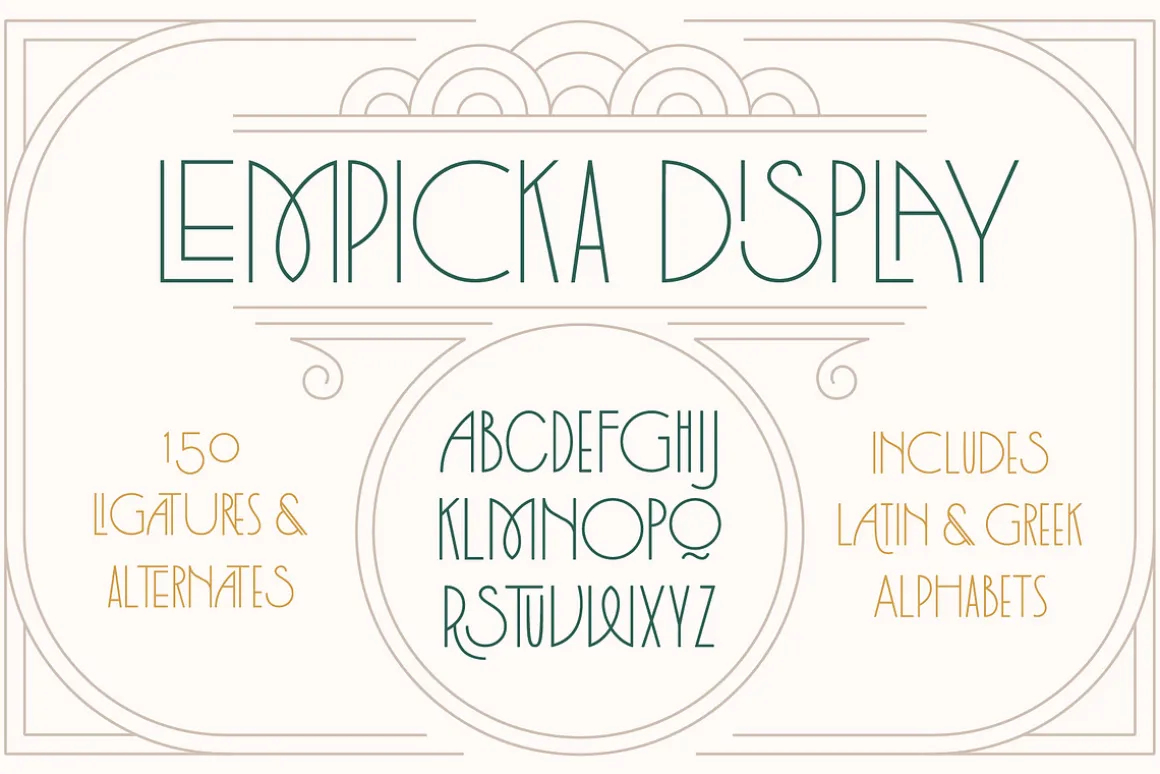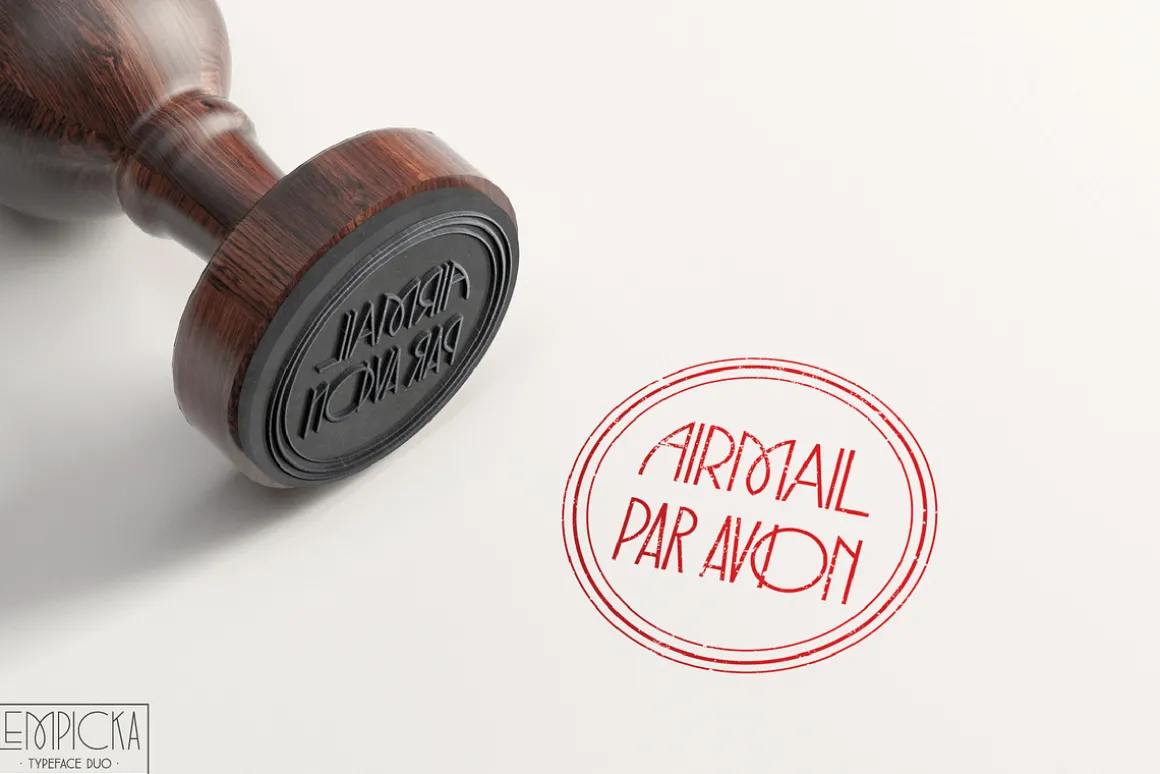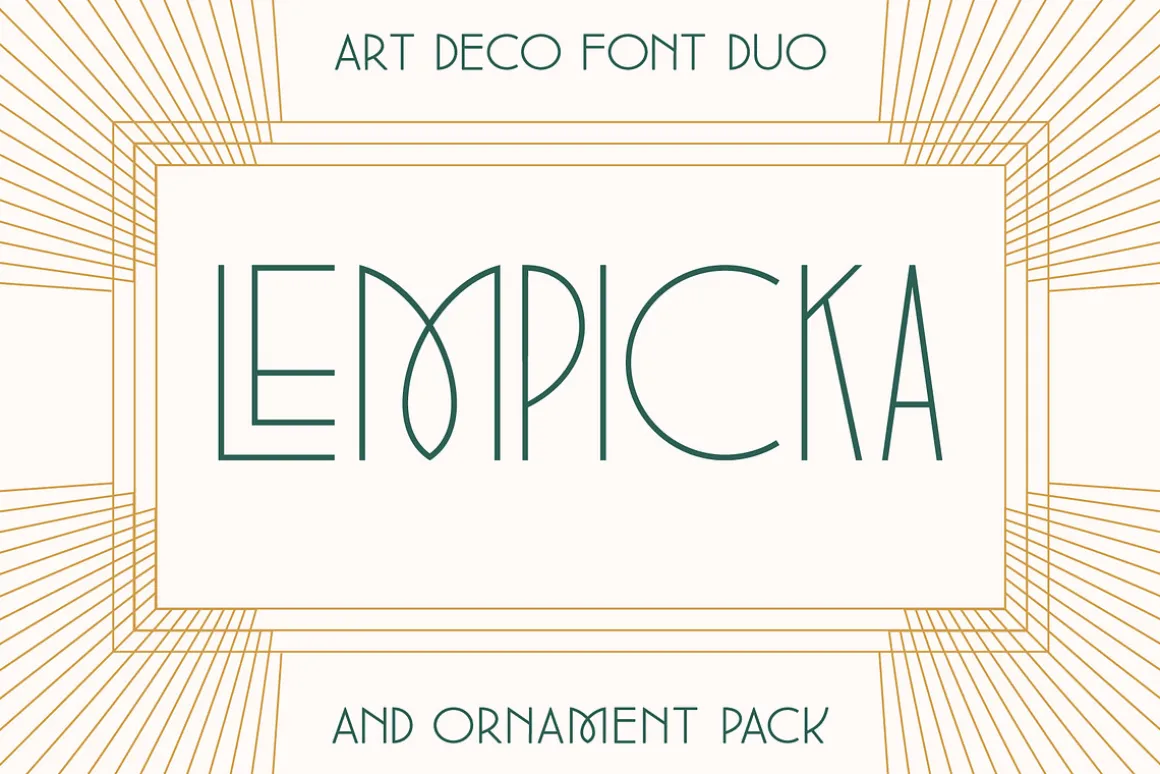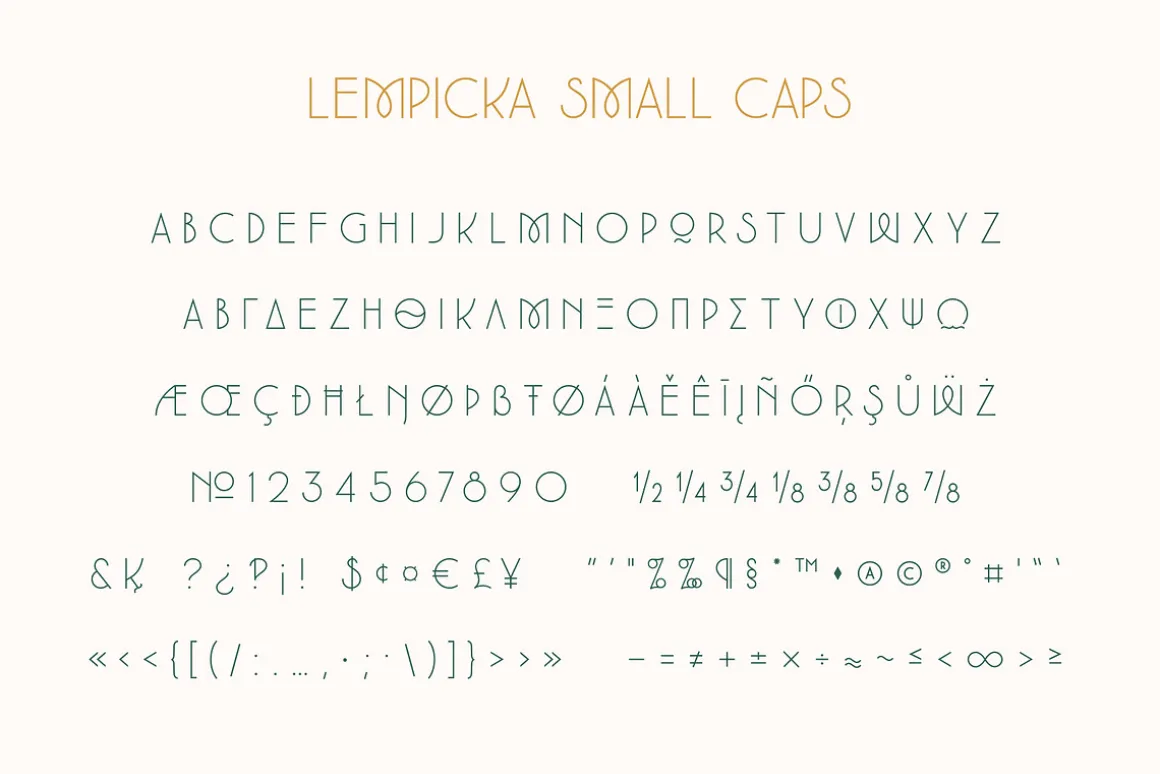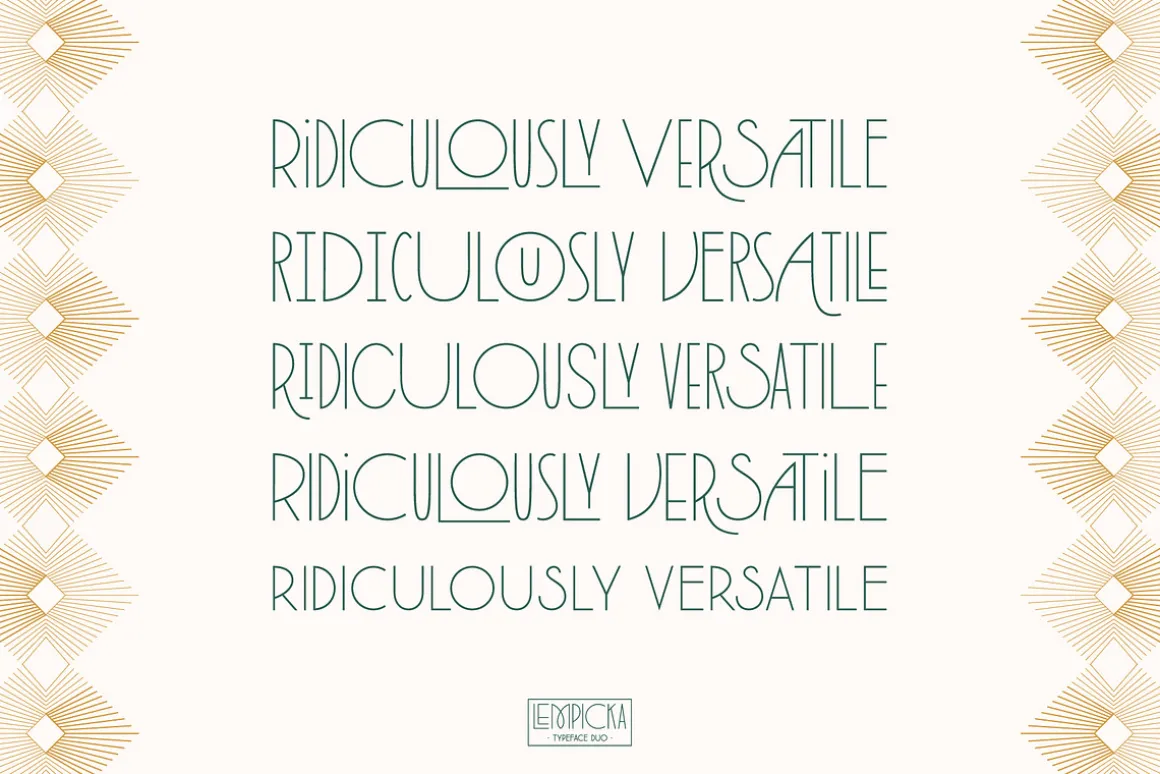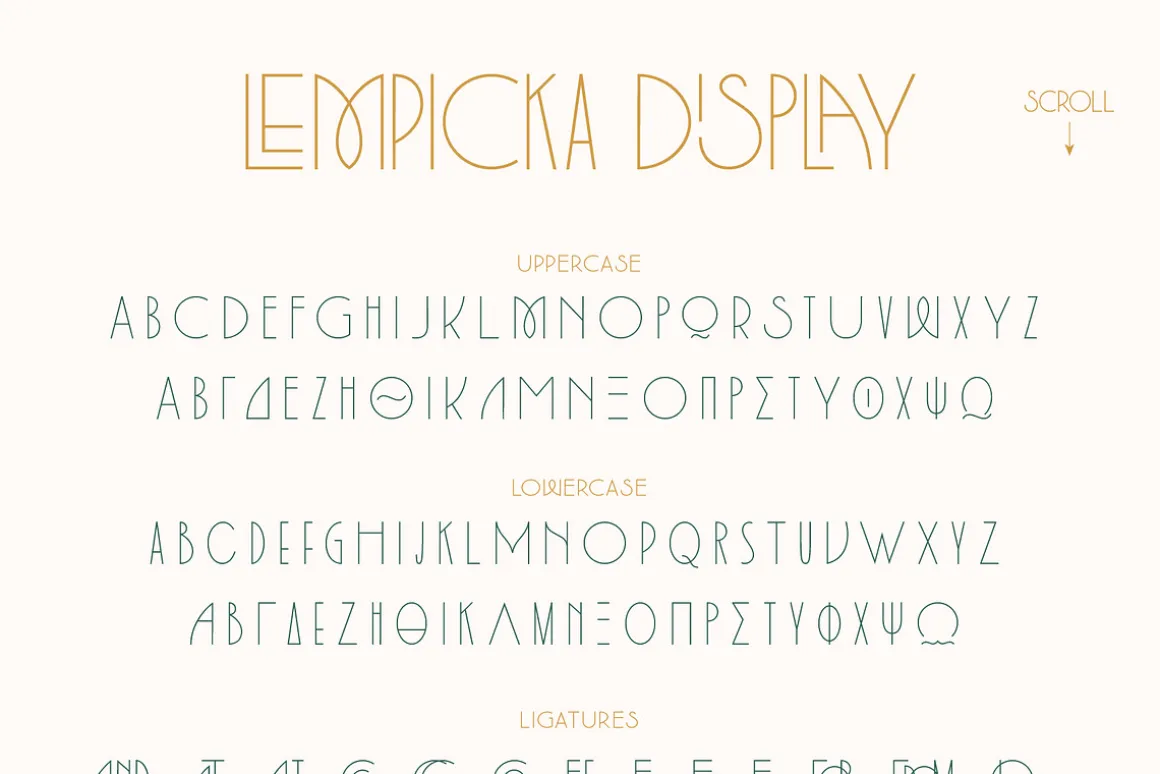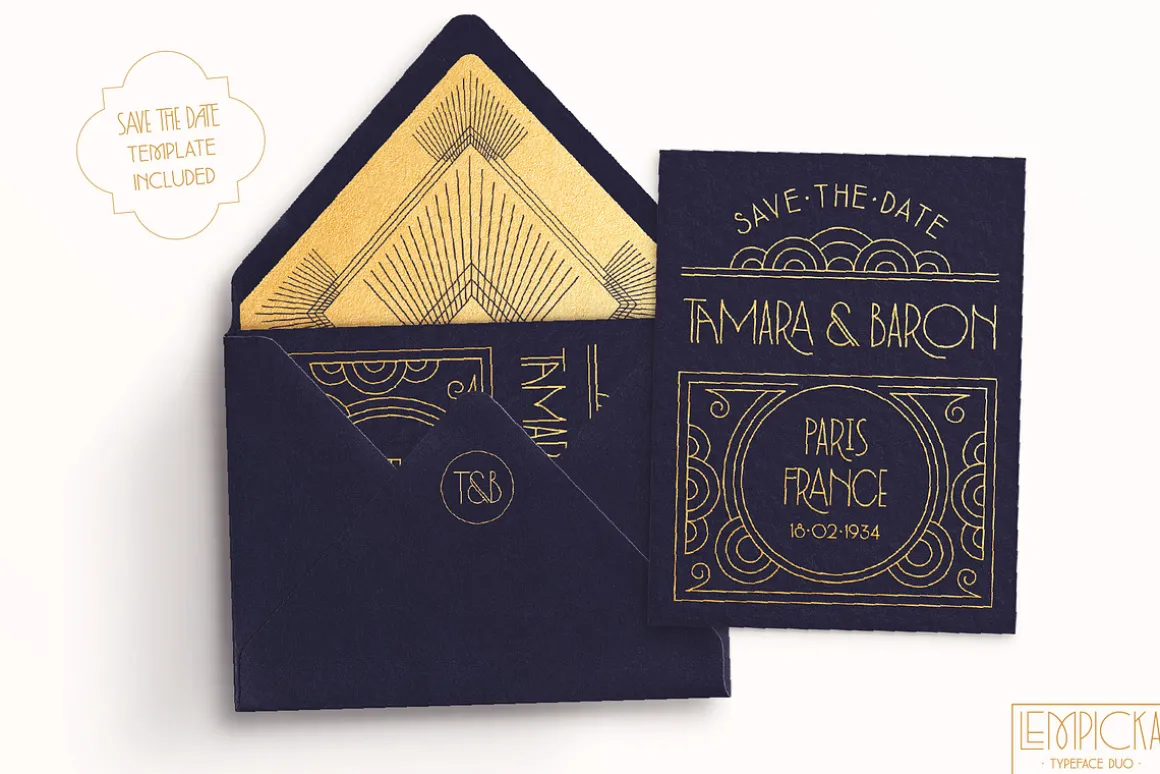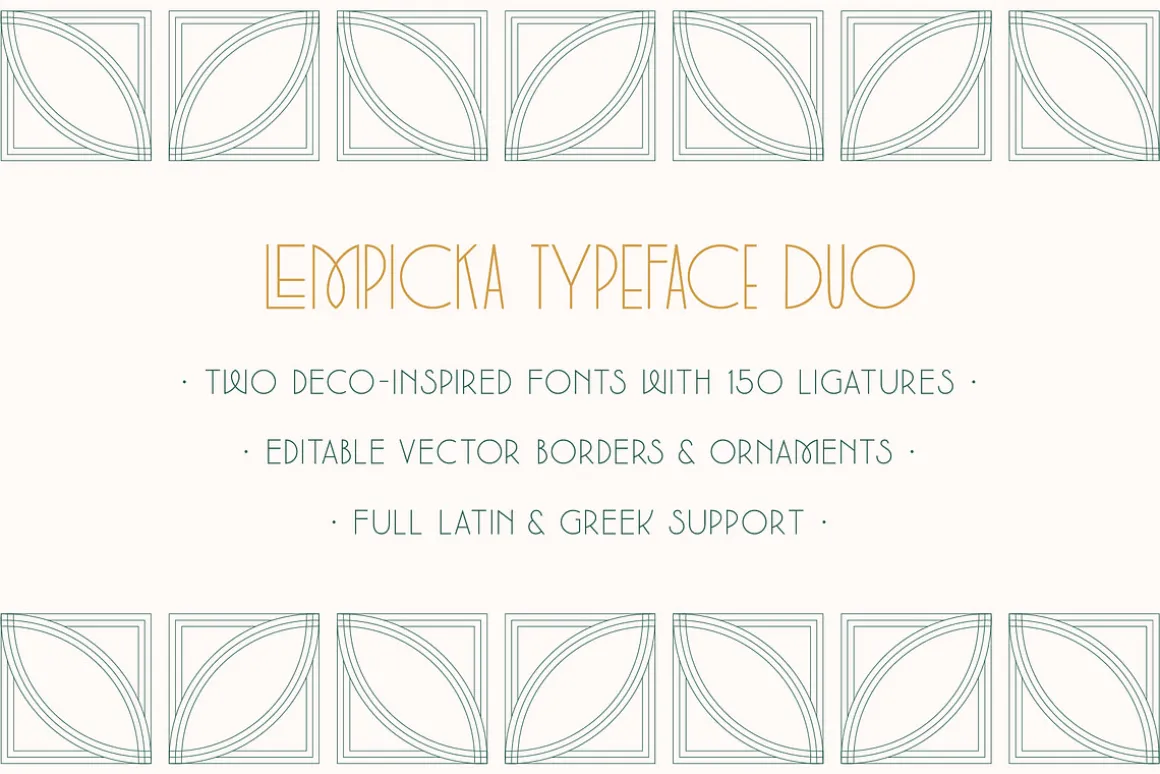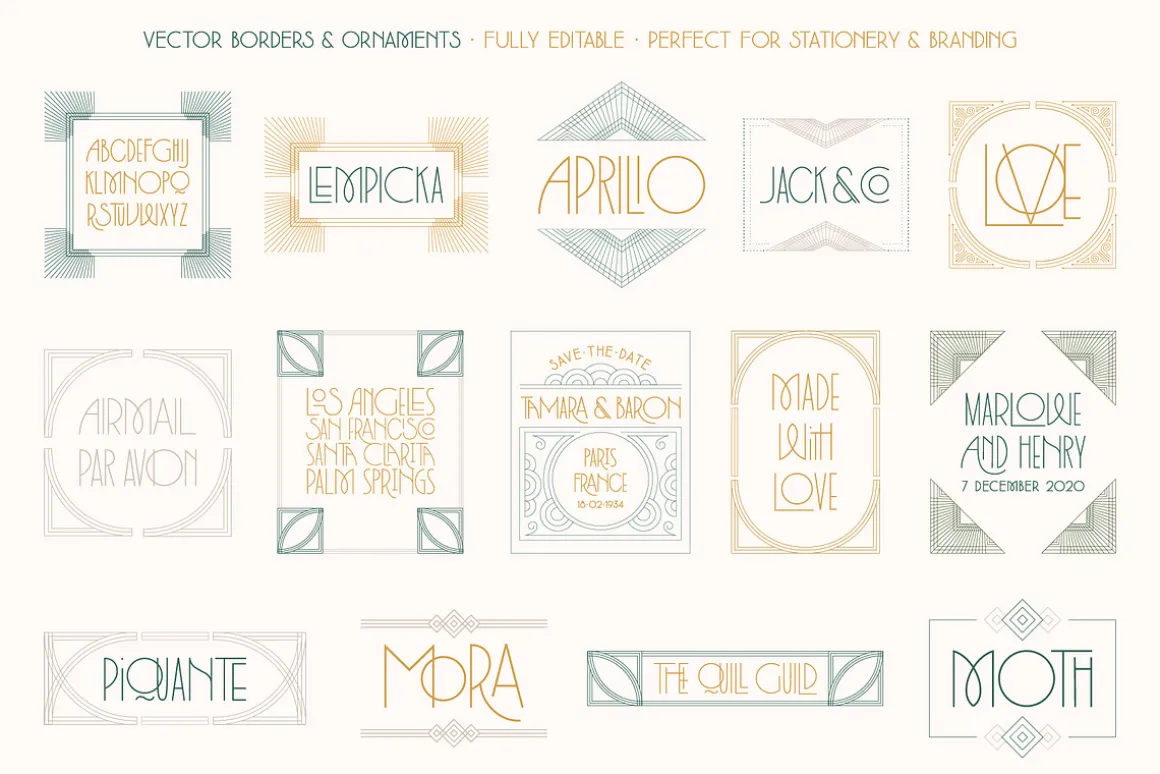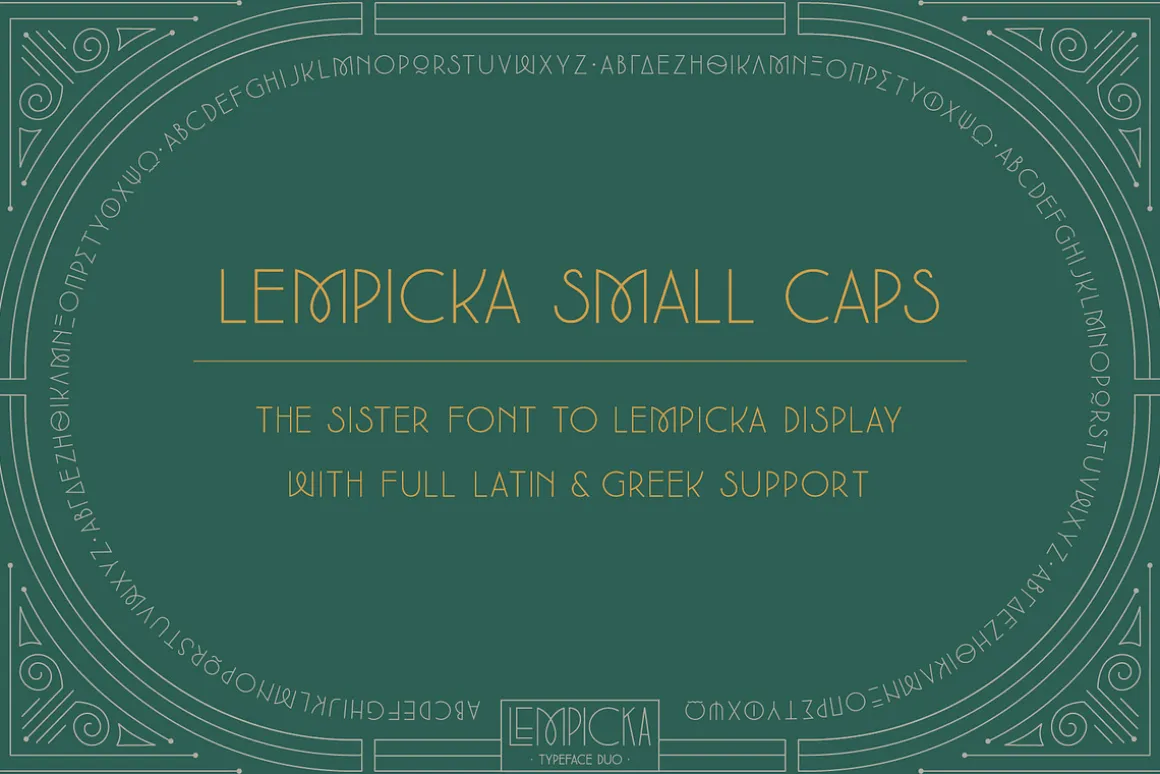
Lempicka is an Art Deco-inspired, ligature-rich typeface duo with support for Latin and Greek. In this package, you will receive two fonts and one vector pack of frames and ornaments.
Lempicka Display and Lempicka Small Caps are a pair of light, clean fonts with strong Deco character. The frames and ornaments are all fully editable vectors – including a Save The Date template – that complement the fonts beautifully.
Lempicka Display has over 150 ligatures in Latin and Greek, as well as:
- the complete Latin alphabet (with all accent marks),
- the complete Modern Greek alphabet,
- dozens of stylistic glyph alternates,
- numerals, ordinals, and fractions,
- extensive punctuation and diacritical markings.
Lempicka Small Caps, the versatile sister font, contains:
- the complete Latin alphabet (with all accent marks),
- the complete Modern Greek alphabet,
- numerals and fractions,
- extensive punctuation and diacritical markings.
Lempicka Frames & Ornaments is a collection of editable vector decorations which includes 22 Deco-inspired frames, borders, and ornaments.
Lempicka supports dozens of languages which use the Latin and Greek alphabets. The most common languages it supports are: English, Catalan, Croatian, Czech, Danish, Dutch, Finnish, Flemish, French, German, Modern Greek, Italian, Maltese, Norwegian, Polish, Portuguese, Spanish, and Swedish.
The ligatures are the fun part.